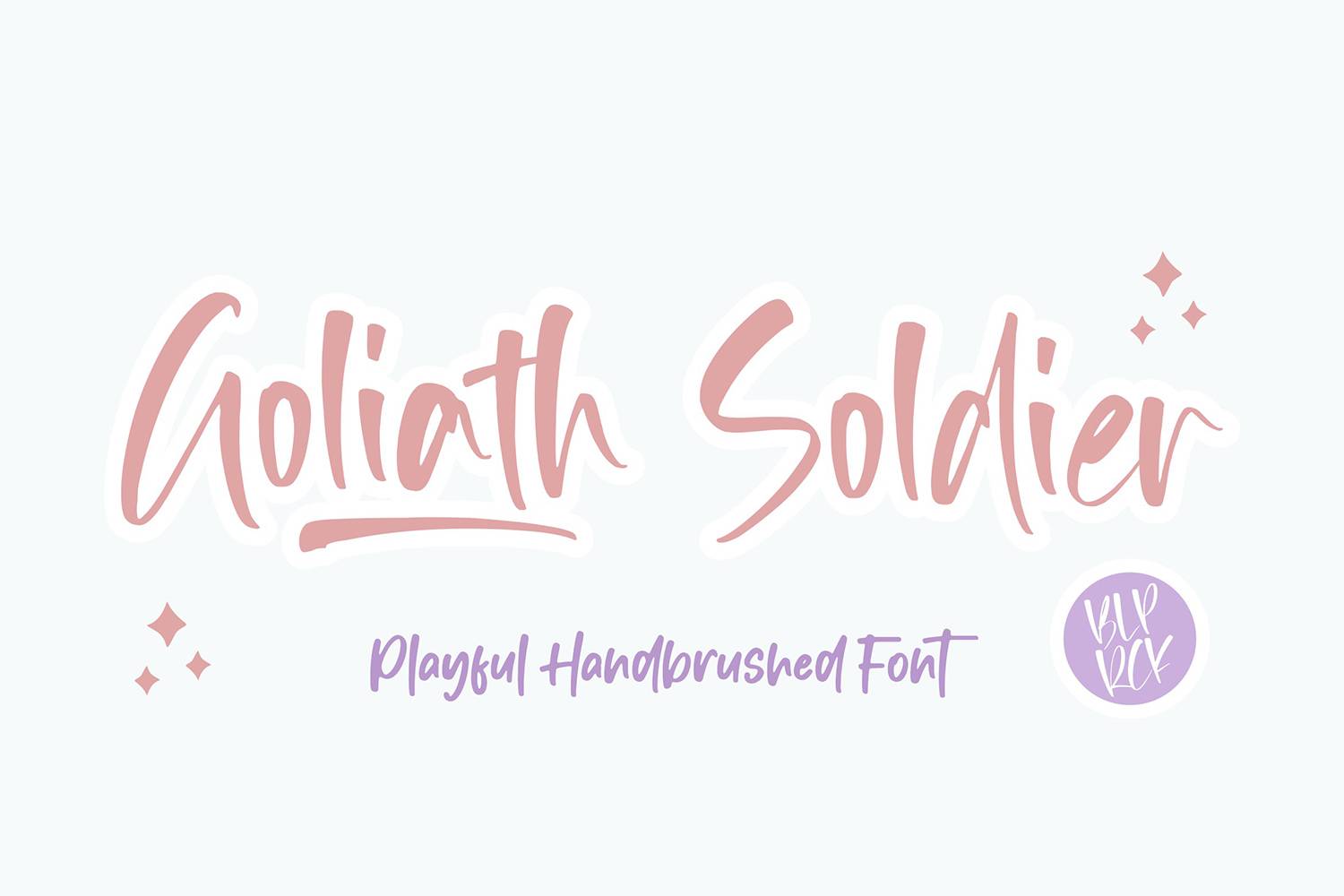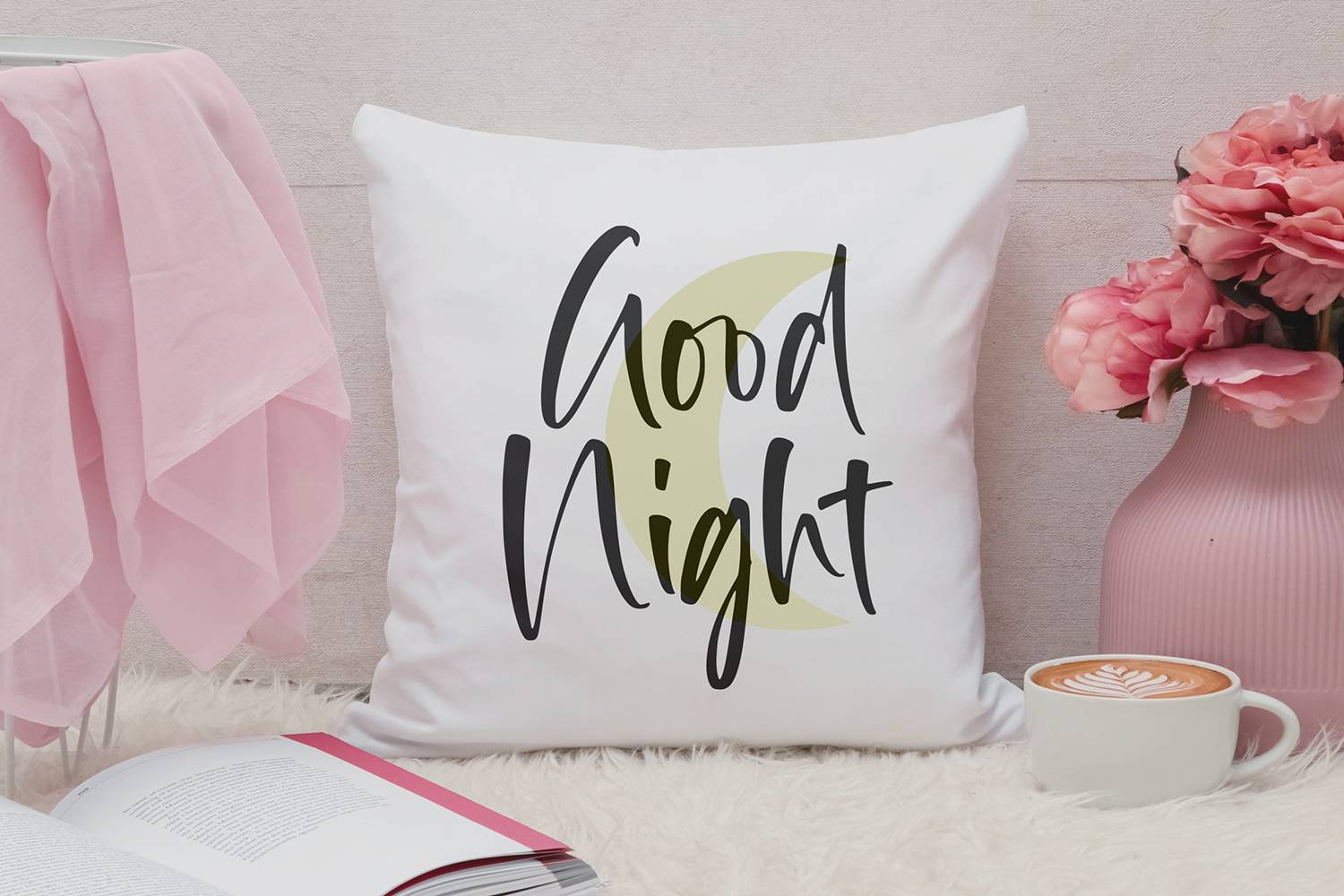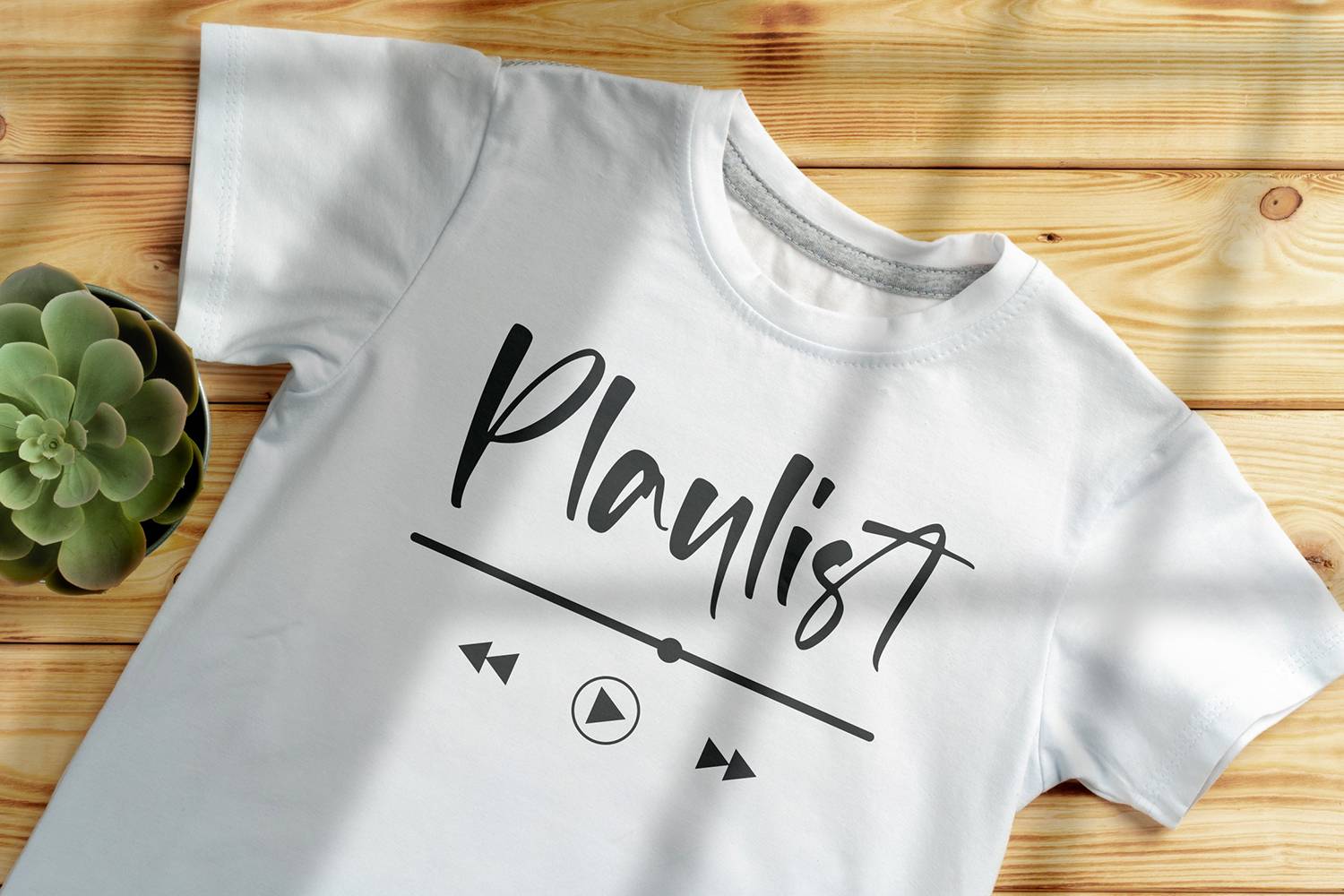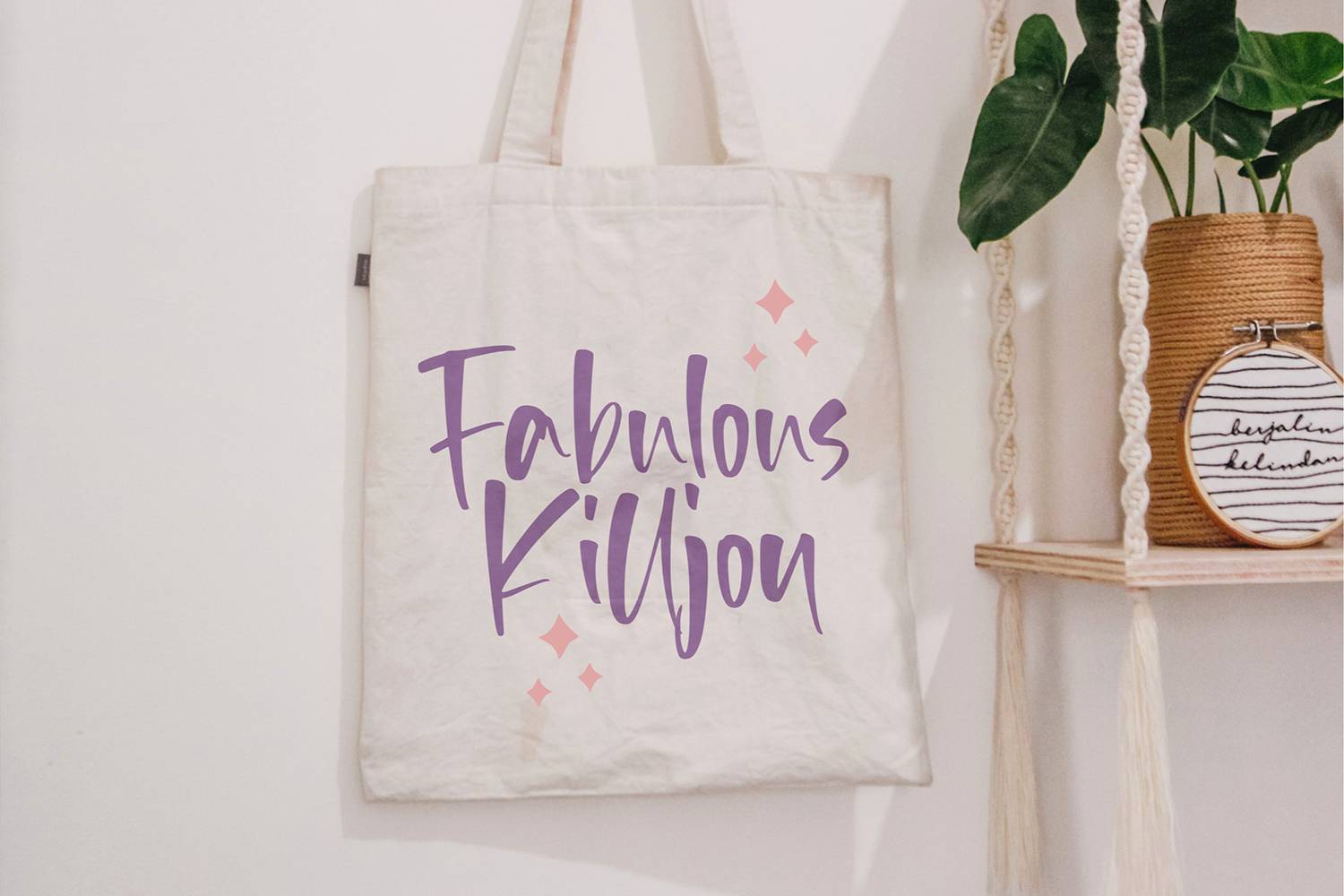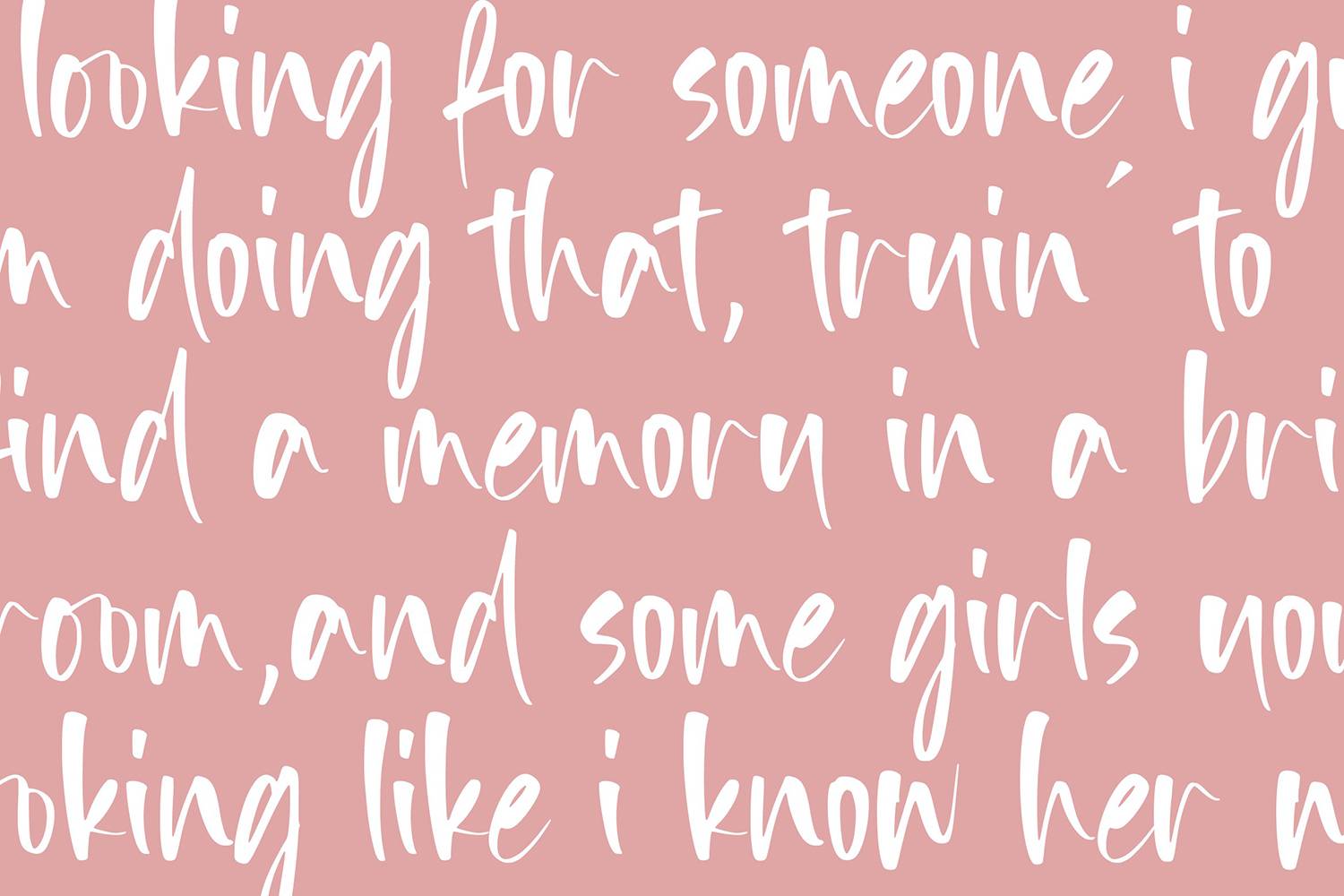
Goliath Soldier is a dynamic handwritten script font that combines casual elegance with energetic strokes, making it feel both bold and approachable. Its tall, narrow letterforms with organic, varying stroke widths create a sense of motion and personality, ideal for creative branding, invitations, or expressive headlines. This font shines in designs that seek a personal yet lively touch, perfectly suited for fashion, lifestyle, and artistic projects needing a handcrafted, distinctive style.
Goliath Soldier Font
About Goliath Soldier Font
| Font family | Goliath Soldier Font |